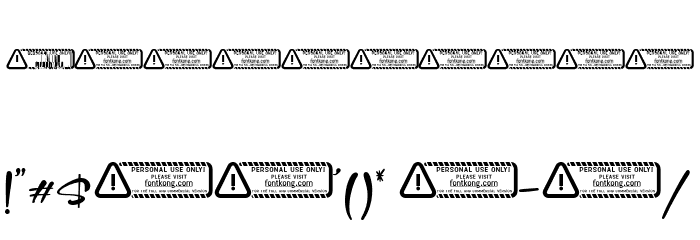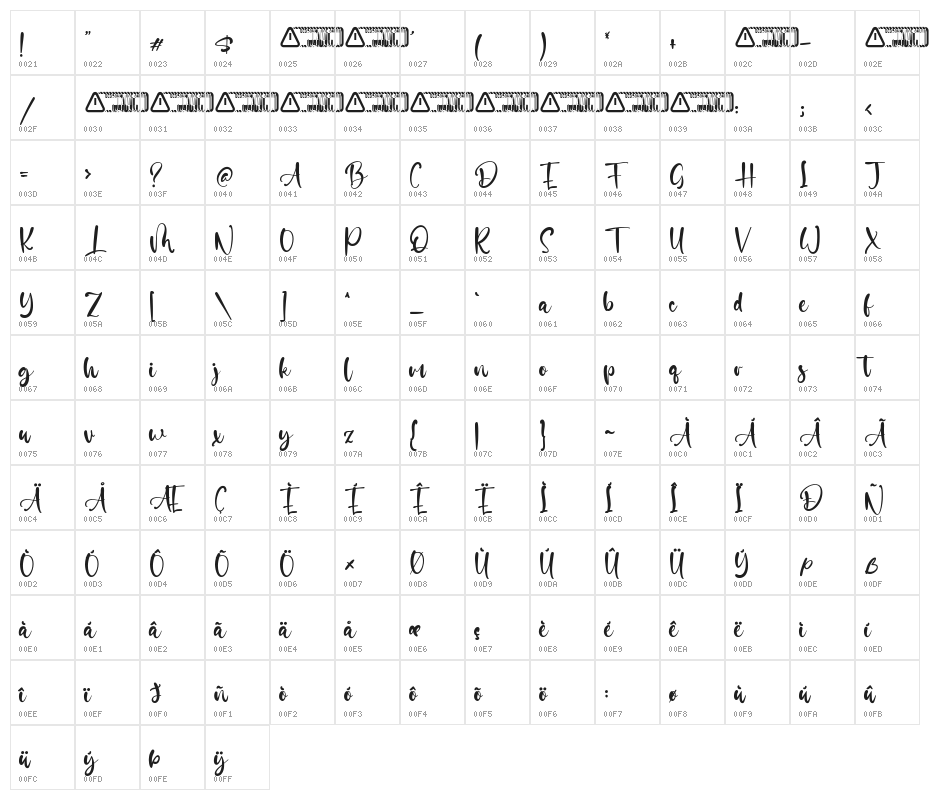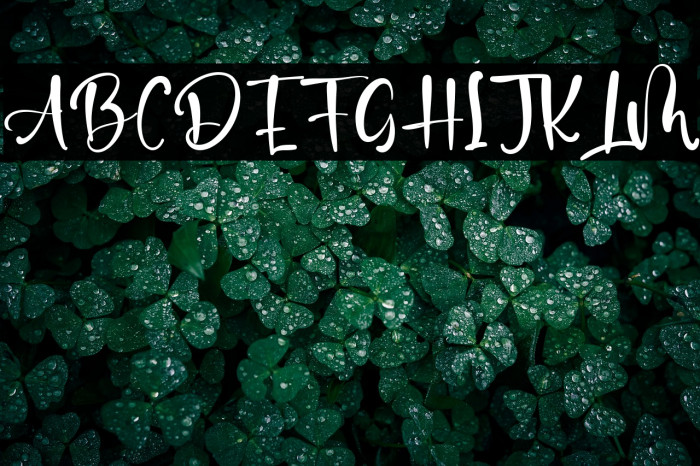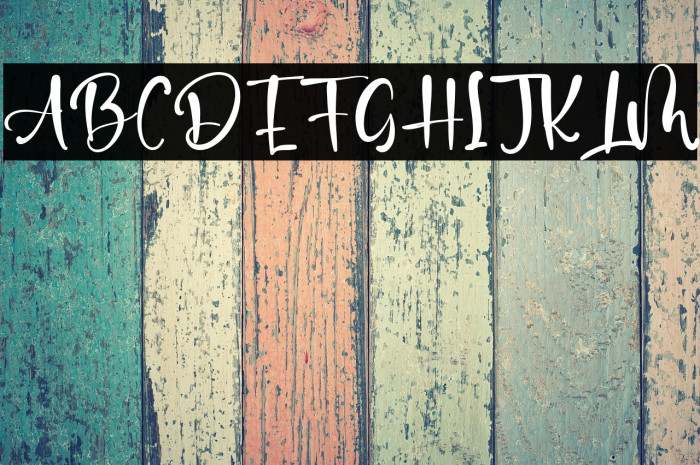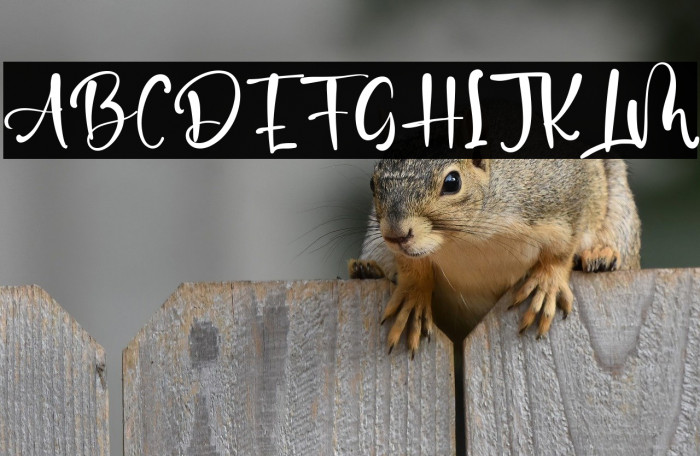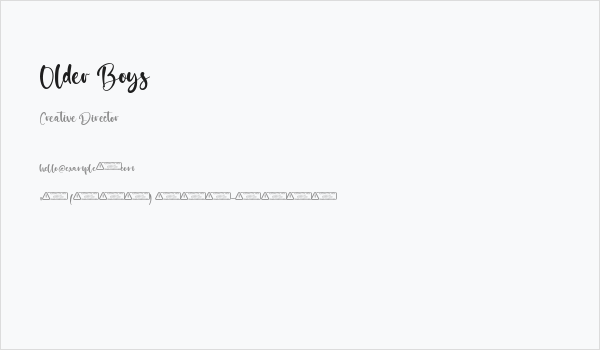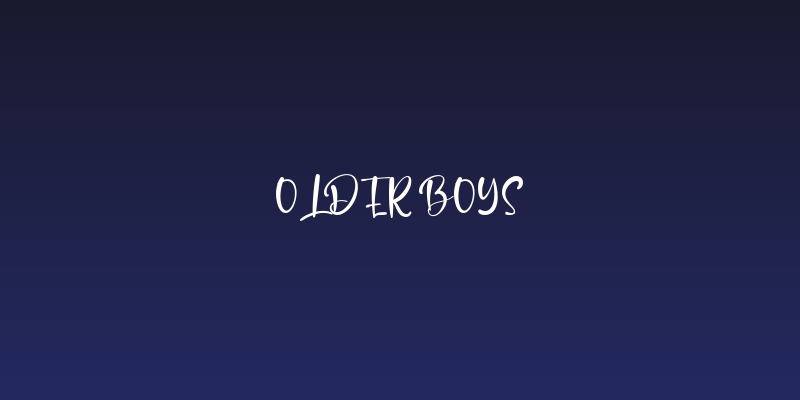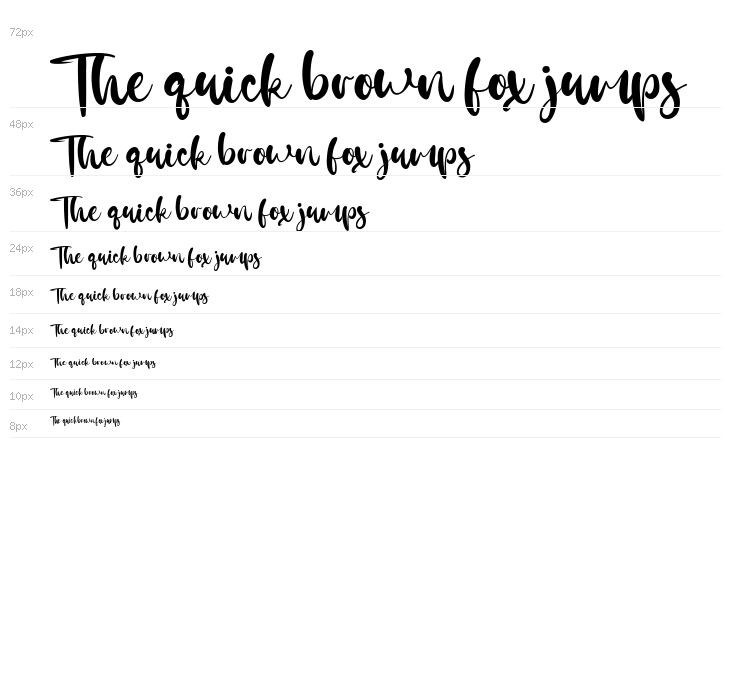
Older Boys Font
Older Boys Description
This font features a playful and energetic script style, characterized by its flowing and connected letterforms. The uppercase letters are bold and dynamic, with a slight slant that adds a sense of movement and liveliness. The lowercase letters maintain this fluidity, with some characters featuring unique loops and swashes that enhance the font's whimsical nature. The numbers and special characters are consistent with the overall style, offering a cohesive look across all glyphs. This font is ideal for projects that require a touch of personality and flair, such as invitations, greeting cards, or branding materials.